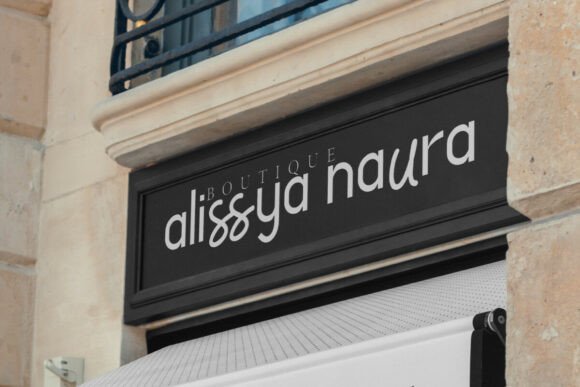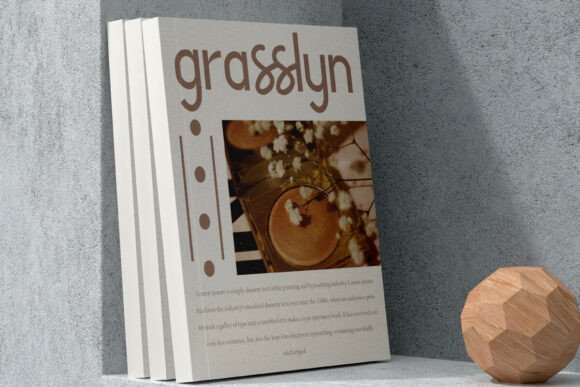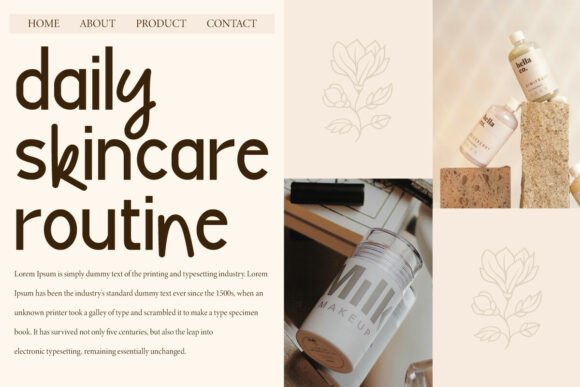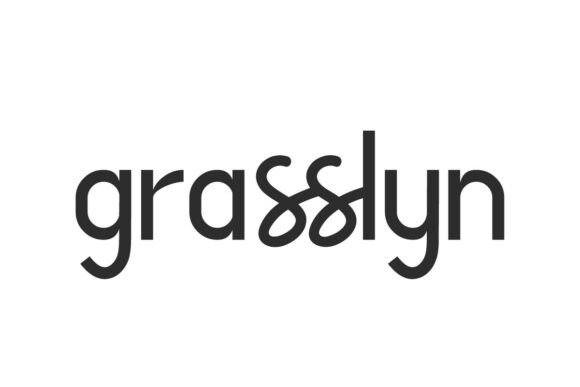
Introducing Grasslyn Font: The Epitome of Modern Minimalism
In the realm of typography, fonts play a pivotal role in defining the visual identity of a brand, product, or editorial content. Among the myriad of fonts available, Grasslyn stands out as a sleek and modern display font that embodies a technical, minimalist aesthetic. Designed with precision and creativity, Grasslyn is perfect for designers and crafters looking to infuse their projects with a sense of professional, architectural sophistication.
Grasslyn’s design is characterized by its lowercase character geometry, rendered with a consistent, monolinear stroke weight and smooth, rounded terminals. This harmonious blend of lines and curves creates a visually appealing rhythm that is both soothing and engaging. The font’s unique selling point lies in its creative ligatures and interconnected loops, which not only add an artistic flair but also contribute to an organized visual flow.
- Monolinear Stroke Weight: The consistent stroke weight gives Grasslyn a clean and uniform look, making it ideal for display purposes.
- Smooth, Rounded Terminals: The rounded terminals add a touch of softness to the font, balancing its technical and minimalist feel.
- Creative Ligatures and Interconnected Loops: These distinctive features set Grasslyn apart, providing a unique visual rhythm that enhances the readability and aesthetic appeal of the text.
Applications of Grasslyn Font
Given its sleek and modern design, Grasslyn is versatile and can be applied in various contexts:
- Minimalist Brand Identities: For brands aiming to convey a sense of modernity, sophistication, and professionalism, Grasslyn is an excellent choice.
- Clean Editorial Headers: The font’s readability and aesthetic appeal make it perfect for editorial content, adding a touch of elegance to headers and titles.
- Architectural Title Blocks: Grasslyn’s architectural precision and clean lines make it suitable for title blocks in architectural designs, portfolios, and presentations.
- Sophisticated Digital Interface Titles: For digital interfaces, such as apps, websites, and software, Grasslyn provides a professional and modern look, enhancing the user experience.
Why Choose Grasslyn?
Choosing Grasslyn for your design project comes with several advantages:
- Unique Aesthetic: Its blend of minimalist design with creative ligatures and interconnected loops offers a unique visual appeal.
- Versatility: Suitable for a wide range of applications, from branding and editorial design to architectural and digital interfaces.
- Professionalism: The font exudes a sense of professionalism and modernity, making it ideal for projects that require a sophisticated look.
Grasslyn font is a premier asset for designers and crafters seeking to incorporate a sleek, modern, and technical aesthetic into their projects. Its unique design characteristics, versatility, and professional appeal make it an excellent choice for a variety of applications. Whether you’re working on a minimalist brand identity, editorial content, architectural designs, or digital interfaces, Grasslyn is sure to elevate your project’s visual appeal and communicate a sense of sophistication and precision.
Embracing Grasslyn in your typography arsenal can significantly enhance the visual impact and professional quality of your designs. Experience the elegance and sophistication it brings to your projects, making them stand out in a crowded design landscape.